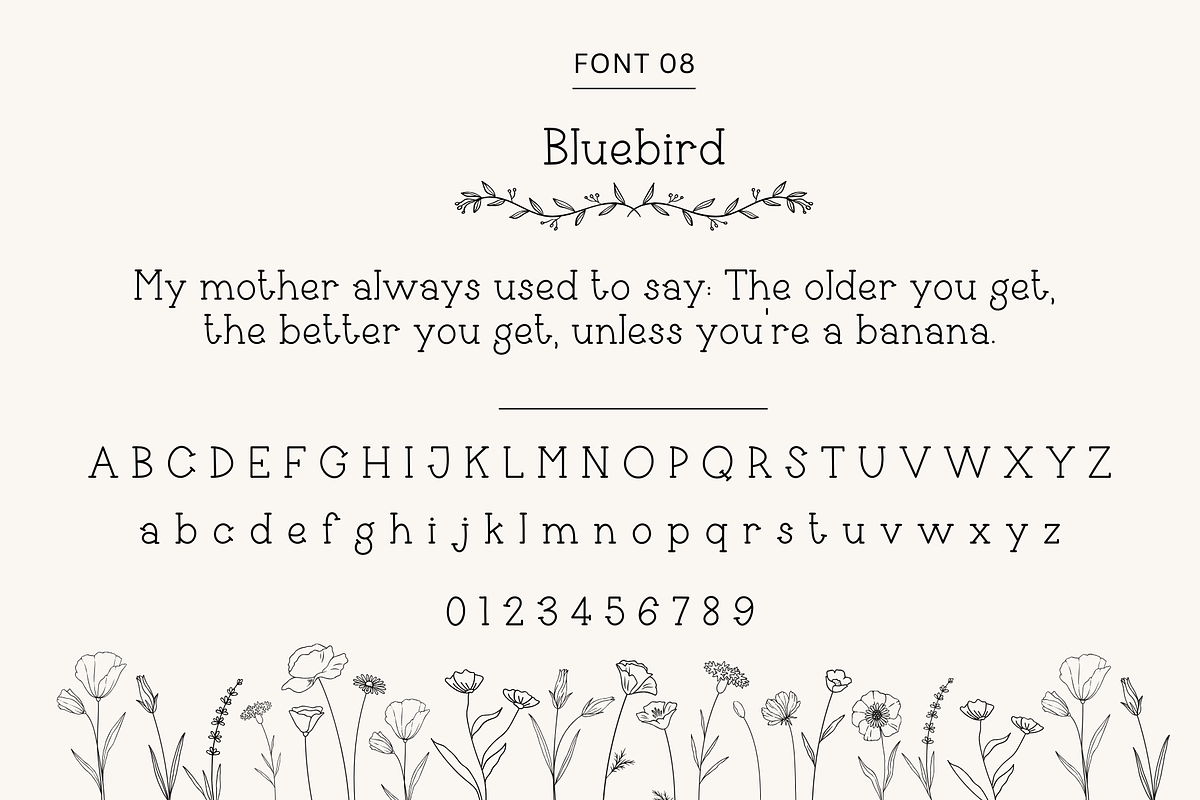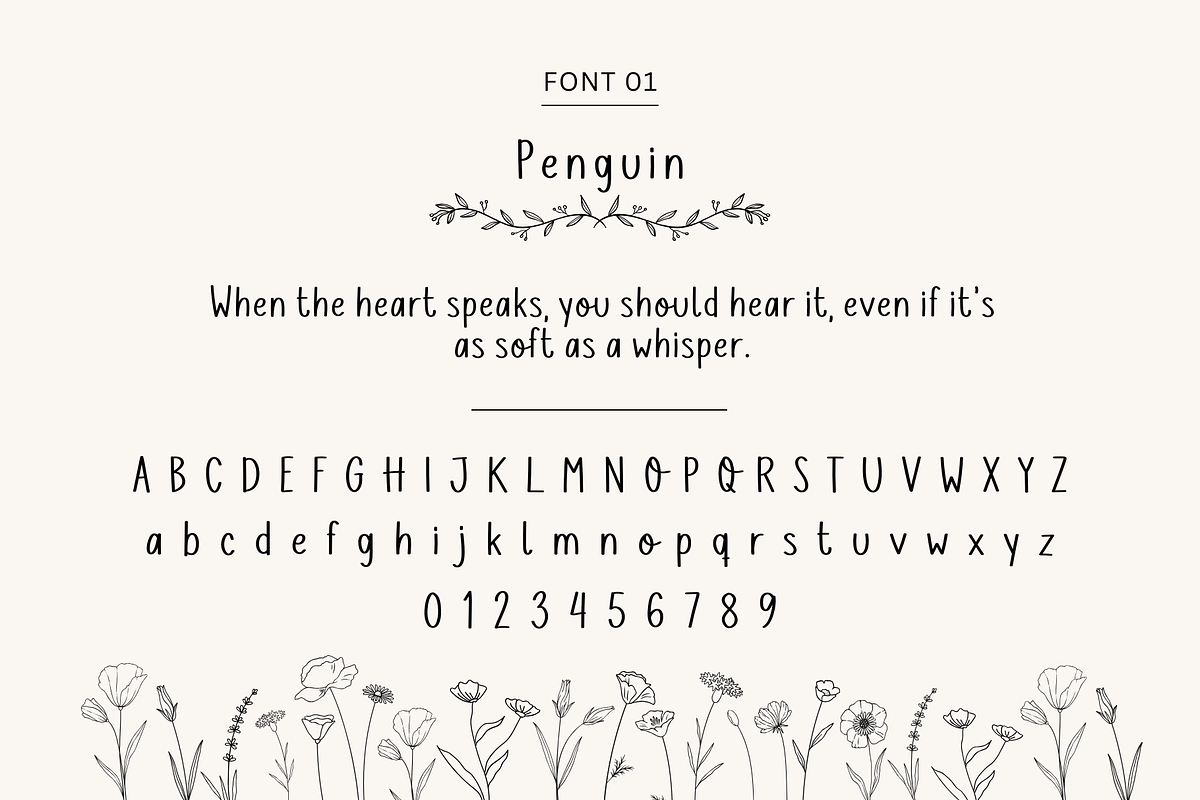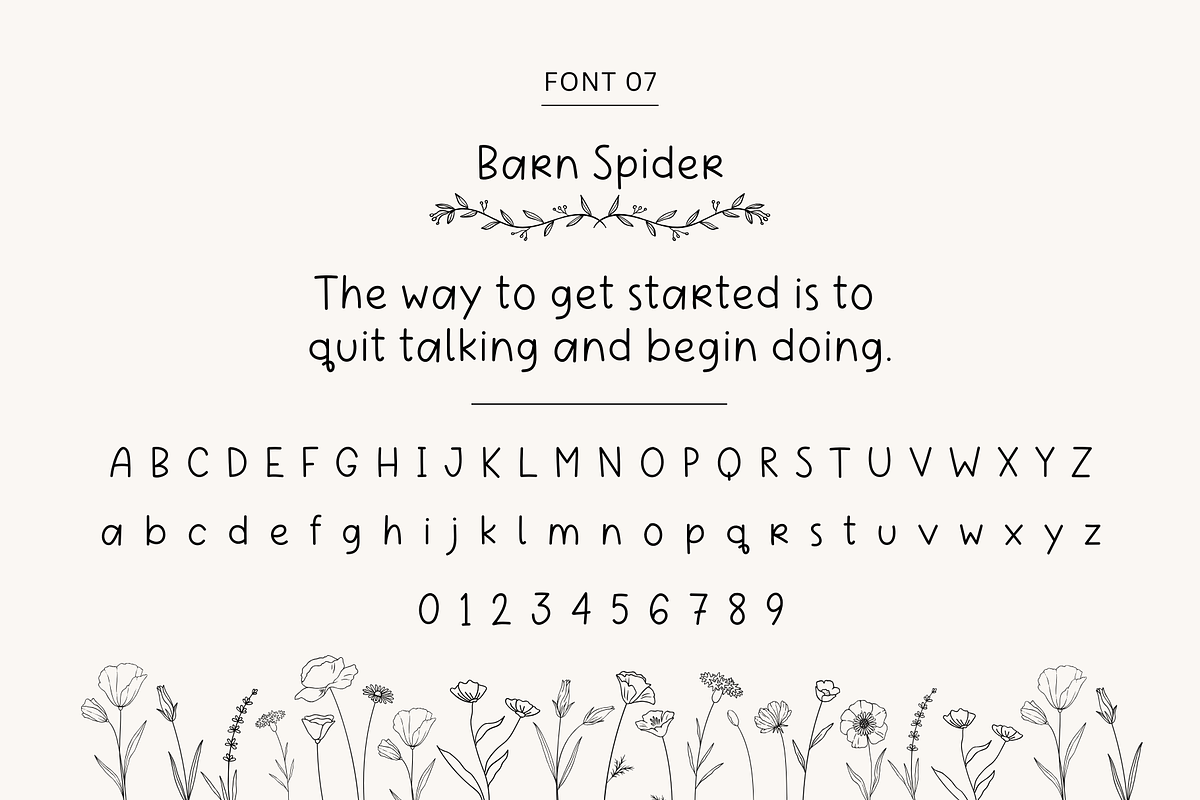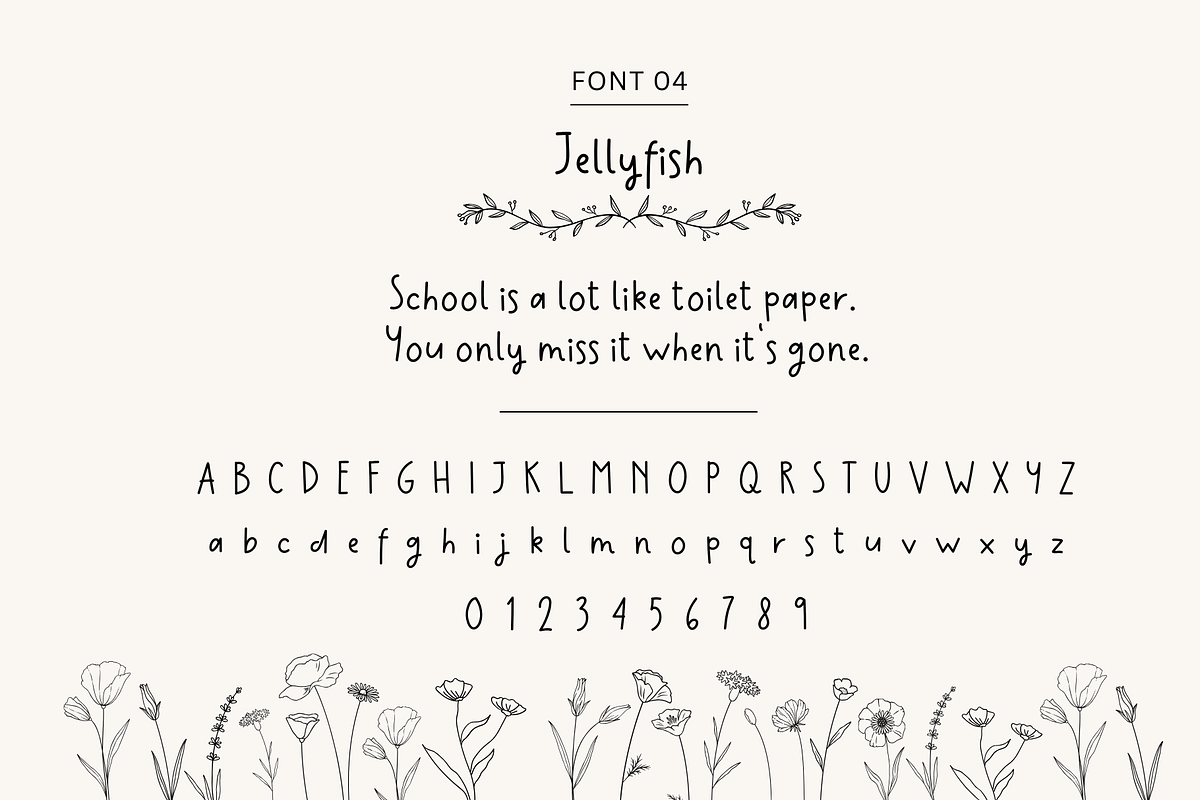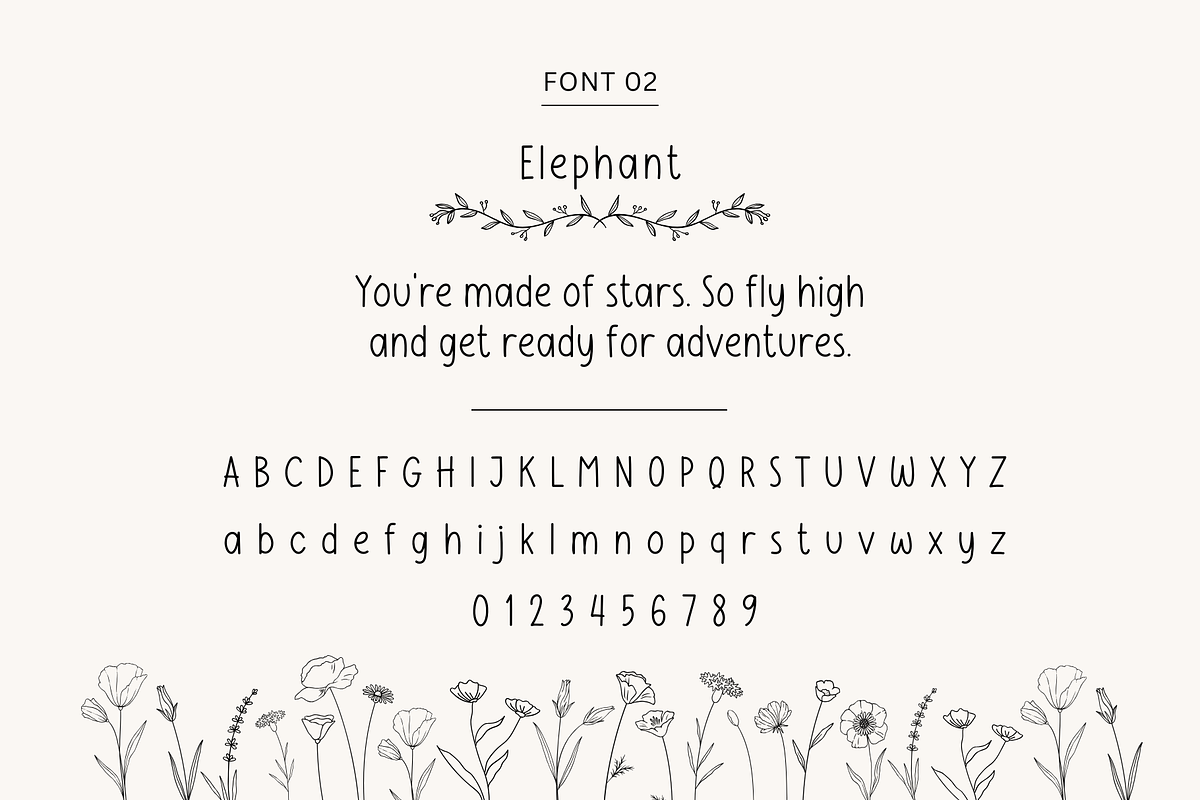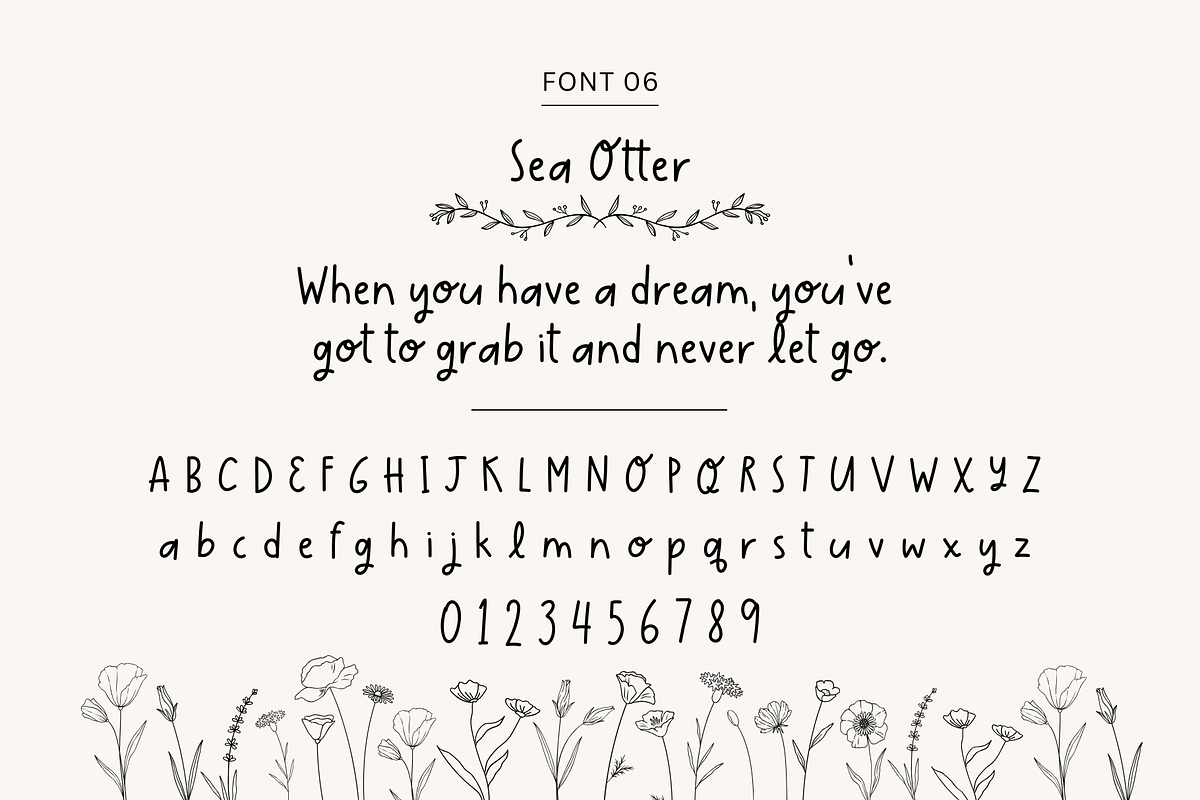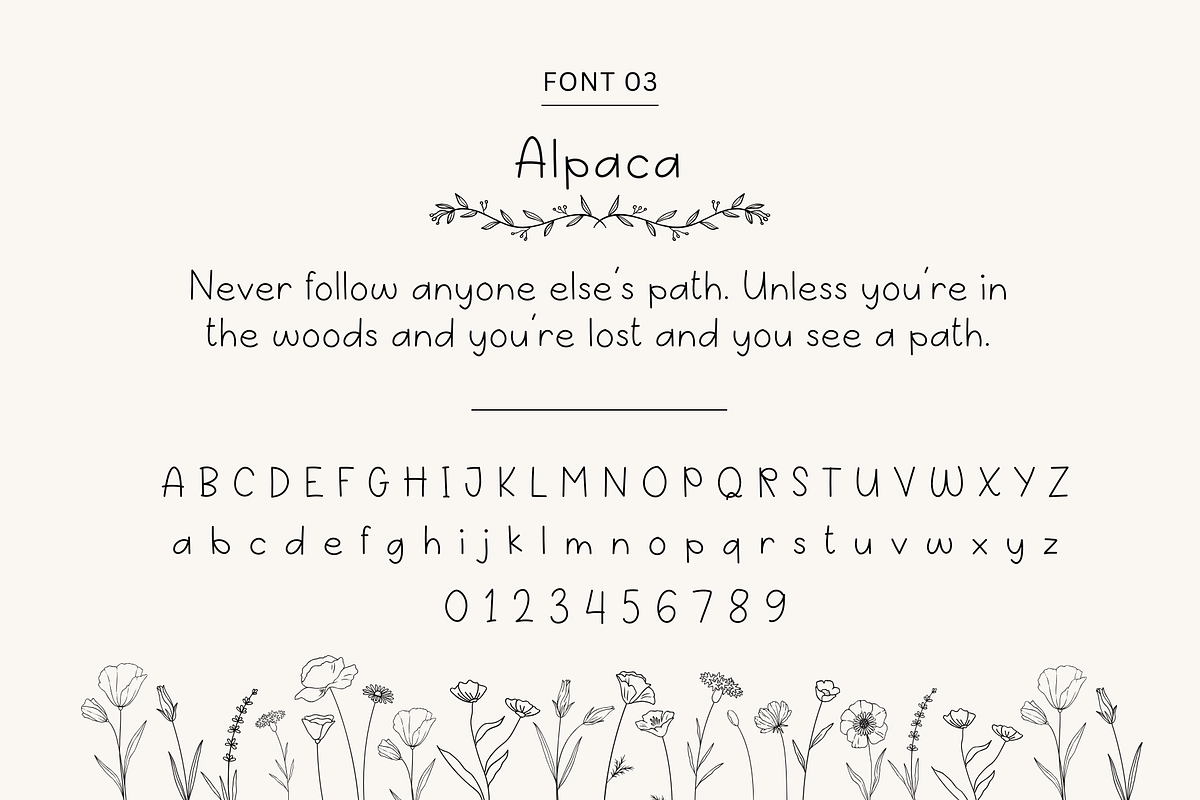
Handwriting Bundle 3
A bundle of 8 unique handwritten fonts. Perfect for digital notes and planners, and other fun projects that require a cute handwriting style.
Fonts included in the bundle.
Penguin
Elephant
Alpaca
Jellyfish
Shepherd
Sea Otter
Barn Spider
Bluebird